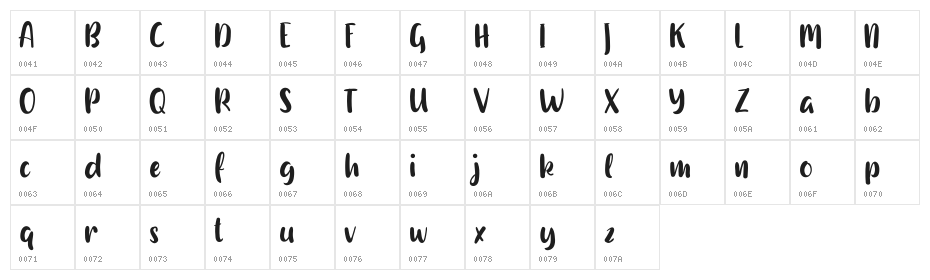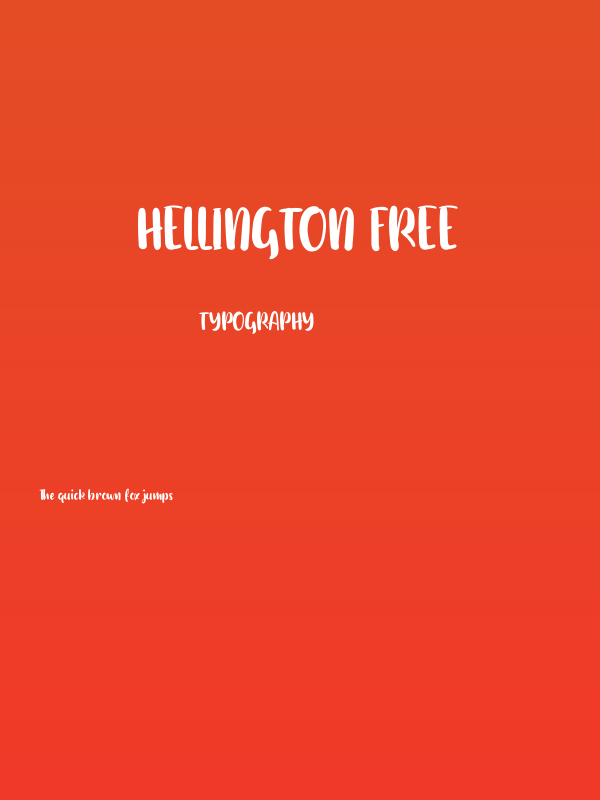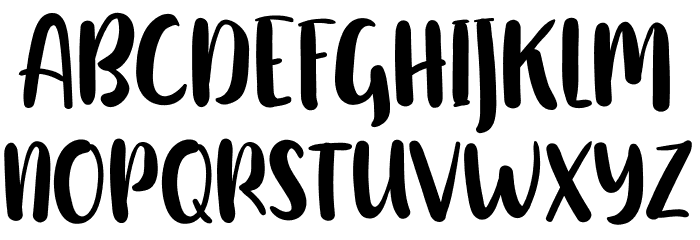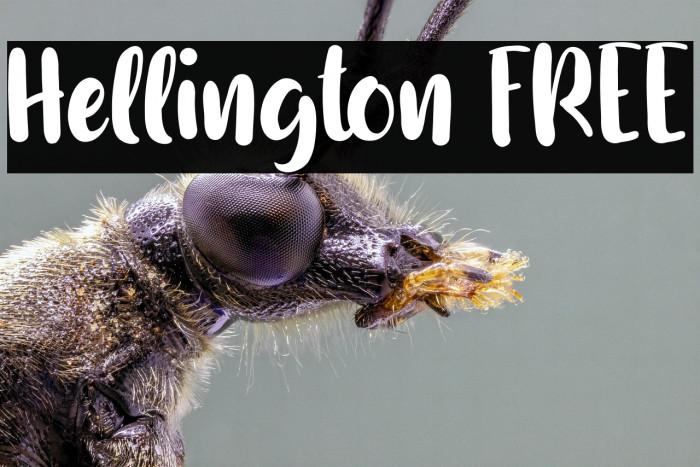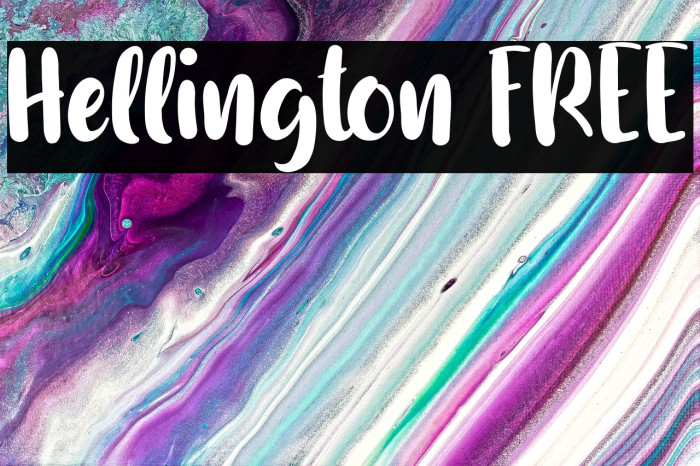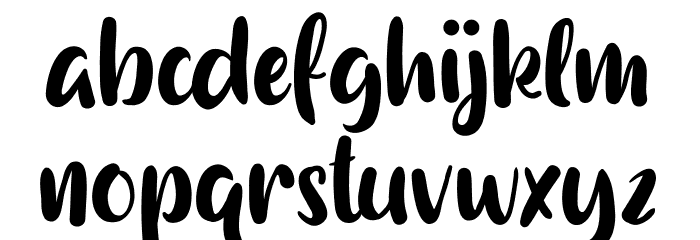
Hellington FREE Font
Hellington FREE Description
This font features a bold, expressive style with a handwritten feel. The characters are thick and rounded, giving a sense of warmth and approachability. The strokes vary in width, adding a dynamic and lively appearance. The uppercase and lowercase letters maintain a consistent style, with playful curves and a slightly informal touch. This font is ideal for projects that require a personal, friendly, and creative vibe. Its unique character shapes make it stand out, perfect for capturing attention in headlines or logos.
| Proposed Projects | Great for greeting cards, invitations, posters, and branding materials that need a personal touch. |